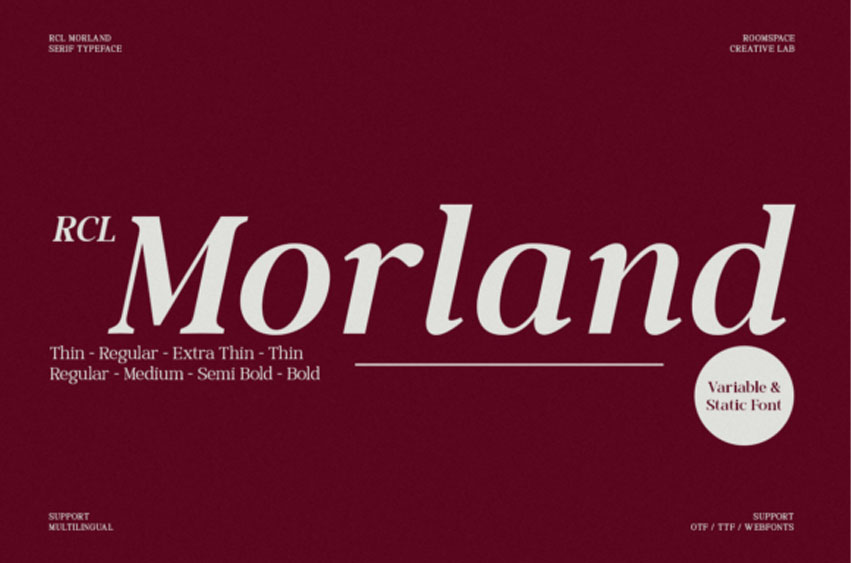
RCL Morland Font Exude timeless elegance with the RCL Morland font, a versatile serif typeface that commands respect and authority.
This RCL Morland typeface features refined proportions and sharp serifs, making it an ideal choice for editorial design, corporate branding, and high-fashion layouts. Available in multiple weights from Thin to Bold, the RCL Morland font offers the flexibility needed for complex typographic systems and hierarchies. Whether used for a luxury logo or long-form body text, the RCL Morland typeface provides a classic, high-contrast look that never goes out of style.